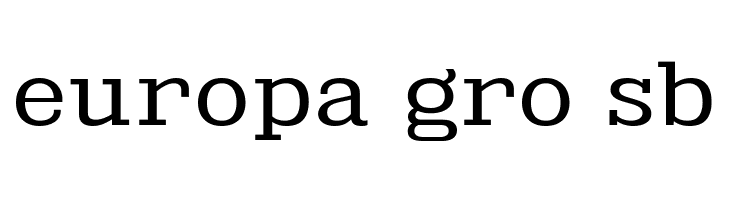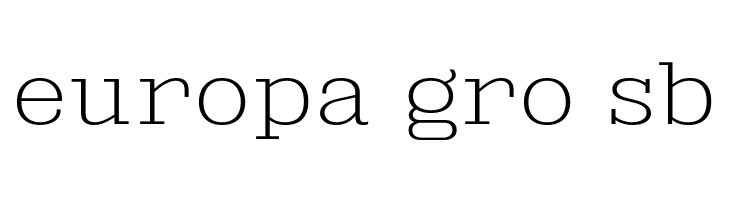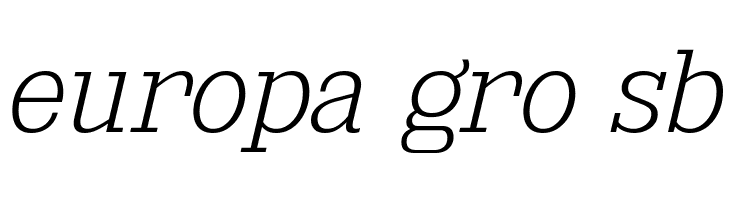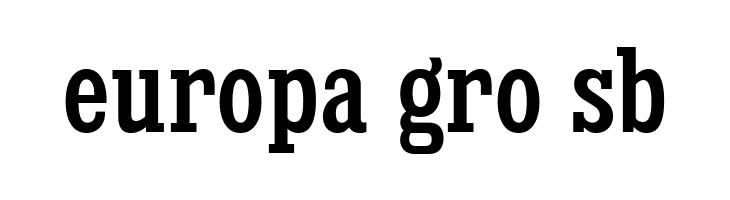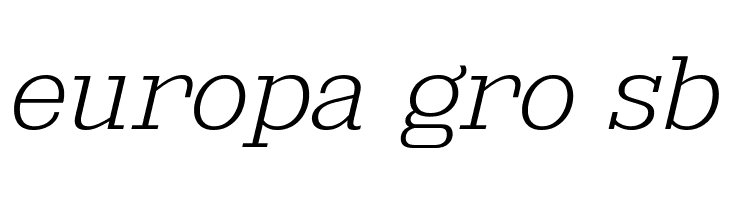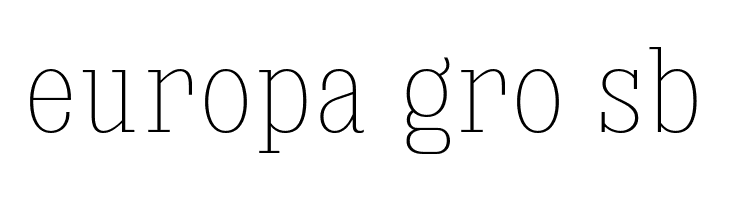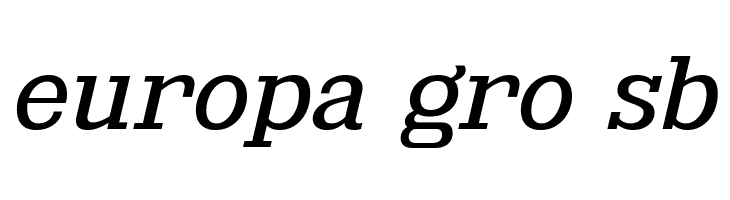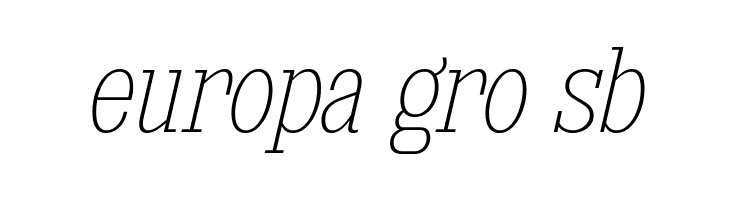
A bold, italic serif font with tight spacing and strong visual impact.
A bold, slab serif font with strong, well-defined characters.
Elegant serif font with a refined italic style and thin, graceful strokes.
A modern, elegant font with thin, elongated letterforms and minimal contrast.
An elegant serif italic font with smooth curves and a classic yet modern style.
A classic serif font with elegant strokes and a timeless appeal.
A classic serif font with an elegant italic slant and sharp serifs.
A classic serif font with modern elements, offering readability and elegance.
An elegant serif italic font with moderate contrast and balanced spacing.
A refined serif font with elegant lines and balanced proportions.